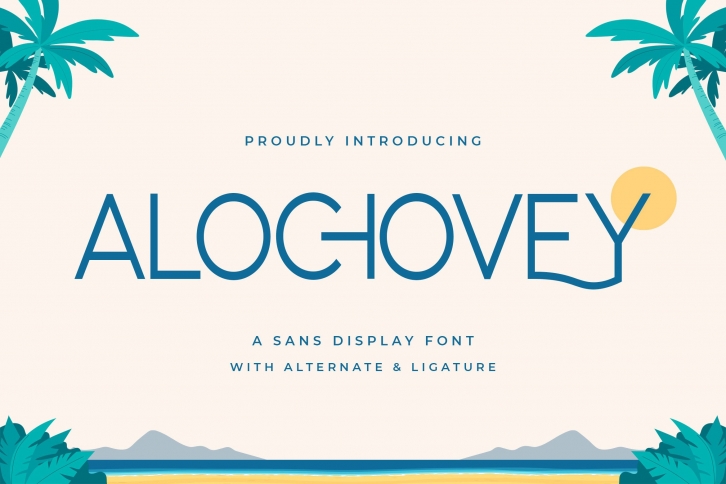
Alochovey is a modern sans display font.
No matter the topic, this font will be an incredible asset to your fonts’ library, as it has the potential to elevate any creation.